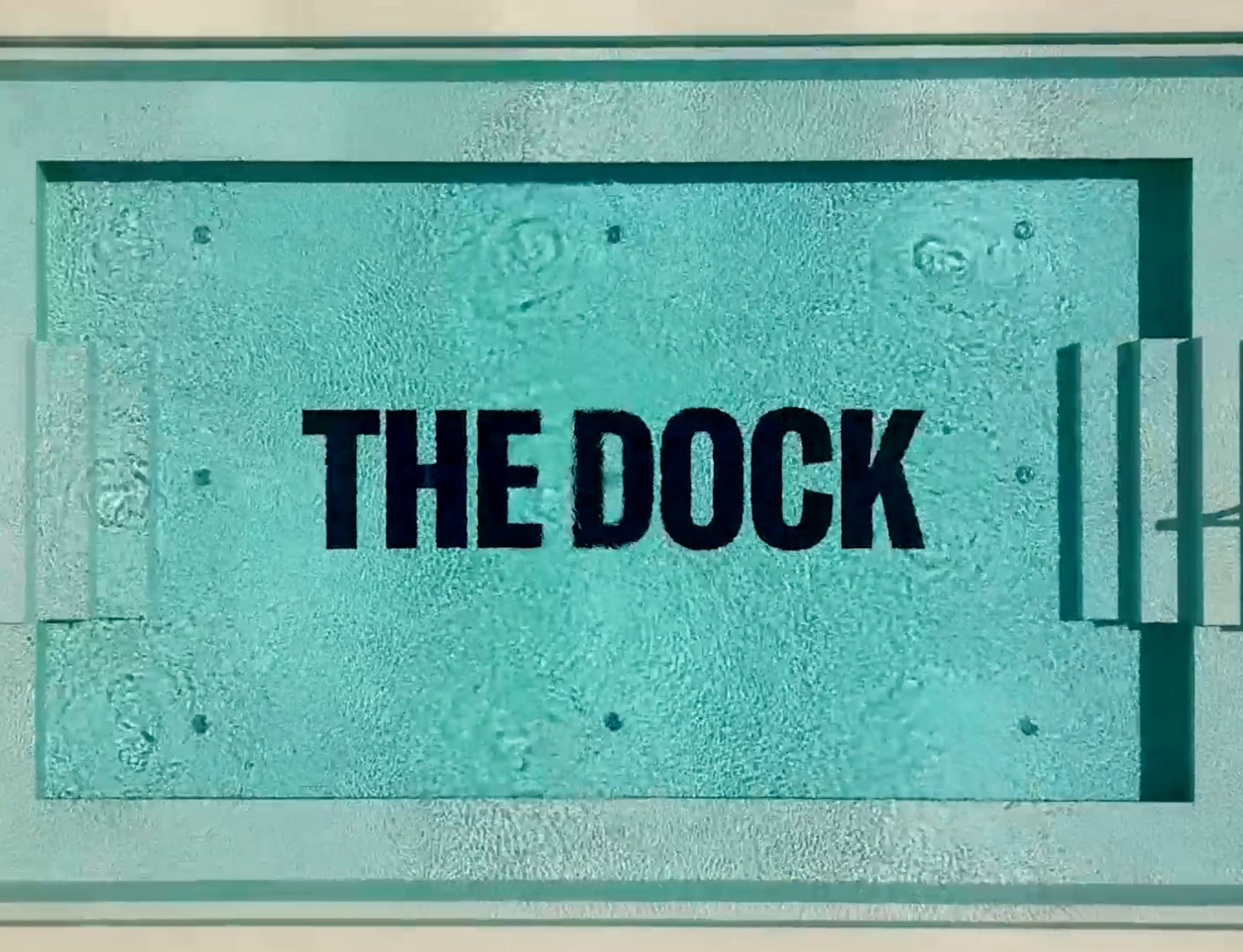
Built from the inside out
Set right on the waterfront, The Dock is a destination hotel with an international feel. Bringing together 183 rooms, a panoramic skybar, restaurants, meeting spaces, a cinema and a 2,000 m² spa, it was designed for weekend getaways, great dinners, memorable meetings and everything in between. Arrive. Unwind. Belong.
The typography draws inspiration from Södertälje's industrial heritage. Condensed, bold and confident, it creates a distinctive rhythm across the identity while giving the brand an unmistakably urban character. Paired with a restrained layout system, it balances clarity with warmth across everything from signage and menus to digital touchpoints.
The identity grows directly from the hotel's interiors. Deep burgundy, cream, dusty pink and black mirror the carefully curated material palette, while warm photography and generous colour saturation reinforce the welcoming atmosphere. Rather than decorating the hotel, the identity feels like a natural extension of the space itself.
The Dock speaks with confidence, curiosity and charm. Headlines are short and memorable, while everyday copy stays clear, conversational and human. Whether welcoming guests, introducing a cocktail or guiding someone through the hotel, every word is designed to feel as considered as the experience itself.